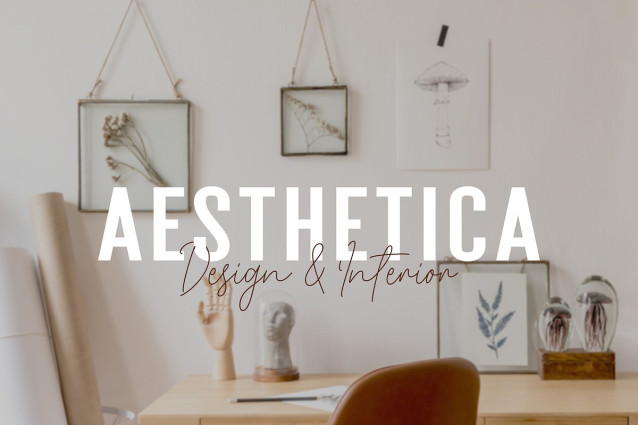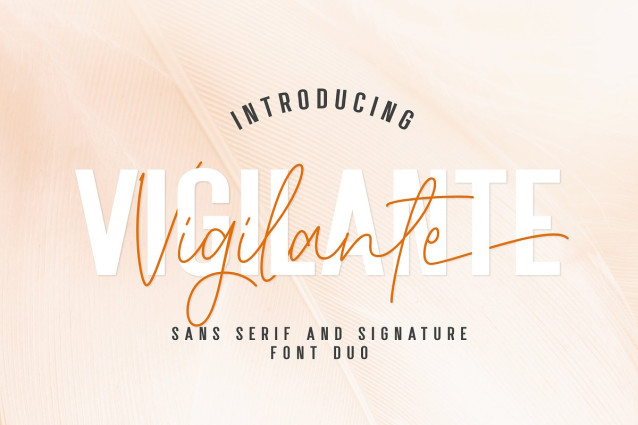
Vigilante Font Duo
Vigilante Font Duo is a modern and classy font duo that combines a sleek sans serif and a stylish signature font. This font is perfect for casual and elegant design projects, such as logos, branding, posters, flyers, invitations, and more. Vigilante is easy to use and versatile, giving your designs a fresh and elegant look. The sans serif font has a clean and minimalistic design that complements the signature font’s cursive style. The signature font features various beautiful ligatures and alternates that add elegance and flair to your texts. You can access the ligatures and alternates through OpenType features or by using a glyphs panel. You can also mix and match the uppercase and lowercase letters to create stunning combinations. Vigilante comes with a full set of characters, including numbers, punctuation, symbols, and multilingual support.